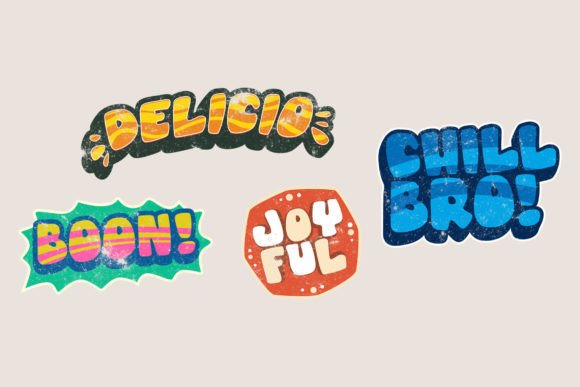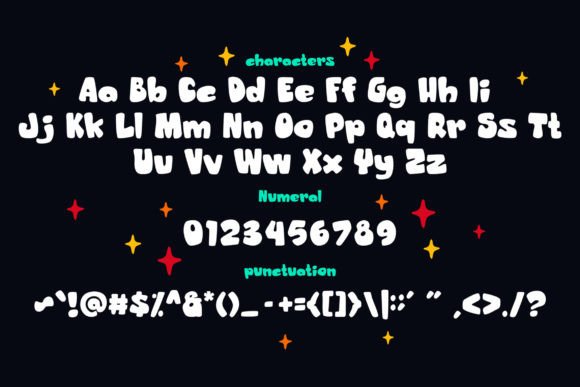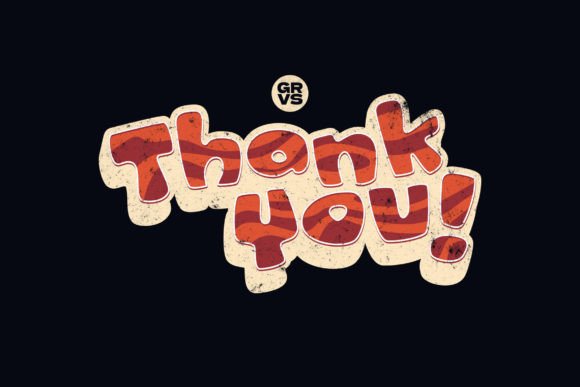
Grvs Boon Retro Bubble Display Font
About the Grvs Boon Retro Bubble Display Font
Welcome to the world of Grvs Boon Retro Bubble Display Font, a typeface that will inspire your next great project. GRVS Boon Retro Bubble Font is our new item that is suitable for your team logo, or community logo with a Funny, Kids, and Joy theme.
Great for Logo, Sticker, Jersey, Invitation Card, Brochures, etc.
Grvs Boon Retro Bubble’s playful, rounded forms make it ideal for headlines, logos, and short text applications like posters or packaging where a fun, friendly aesthetic is desired. It excels in projects targeting children, youth-oriented brands, or products emphasizing lightheartedness. Avoid using it for body text or lengthy paragraphs; its low x-height and letter spacing would hinder readability.
Consider pairing Grvs Boon Retro Bubble with a clean sans-serif like Open Sans for body copy, creating a strong contrast between the playful display font and a highly legible text font. Alternatively, a classic serif like Garamond could add a touch of sophistication, balancing the font’s youthful energy.
The font’s overall personality is cheerful and approachable, making it a strong choice for brands wanting to project a sense of fun and approachability.
Grvs Boon Retro Bubble Display Font Usage Examples
Grvs Boon Retro Bubble Display Font Example